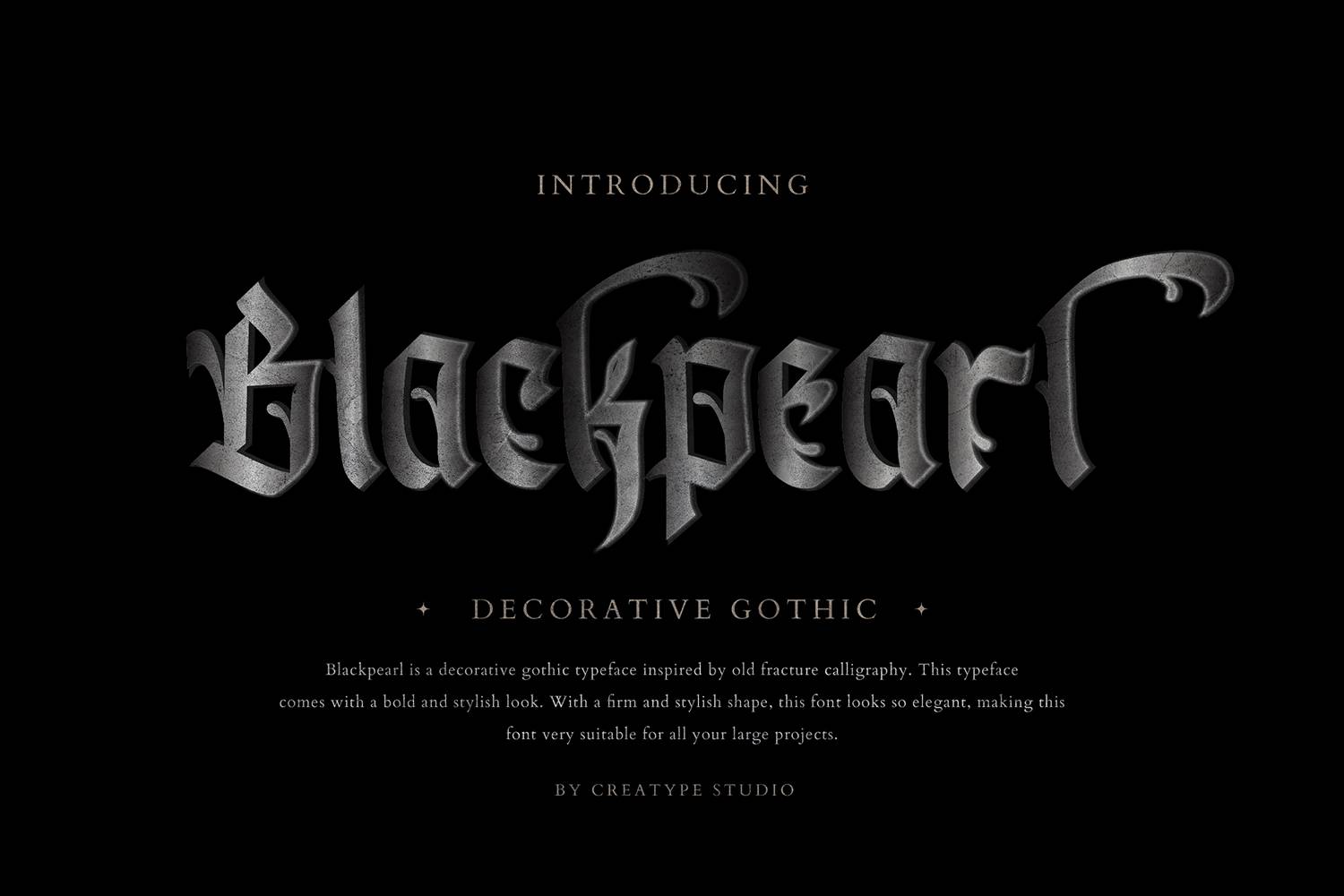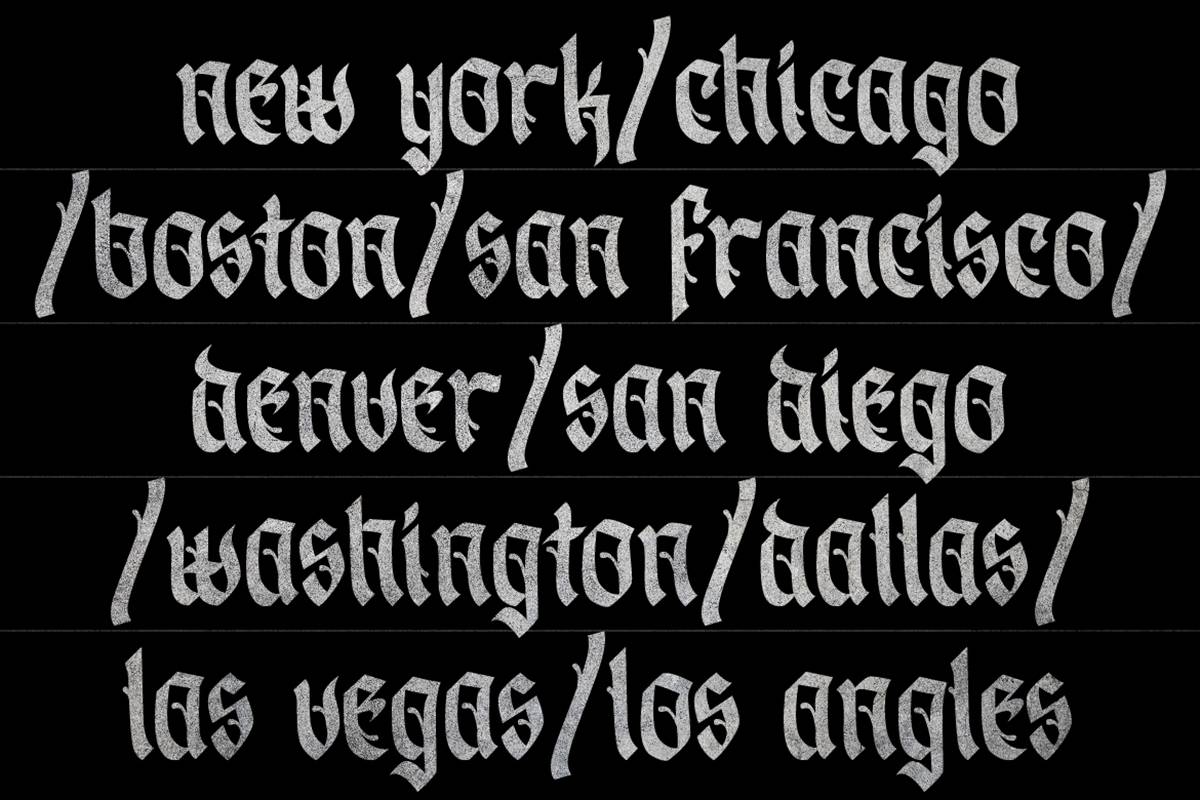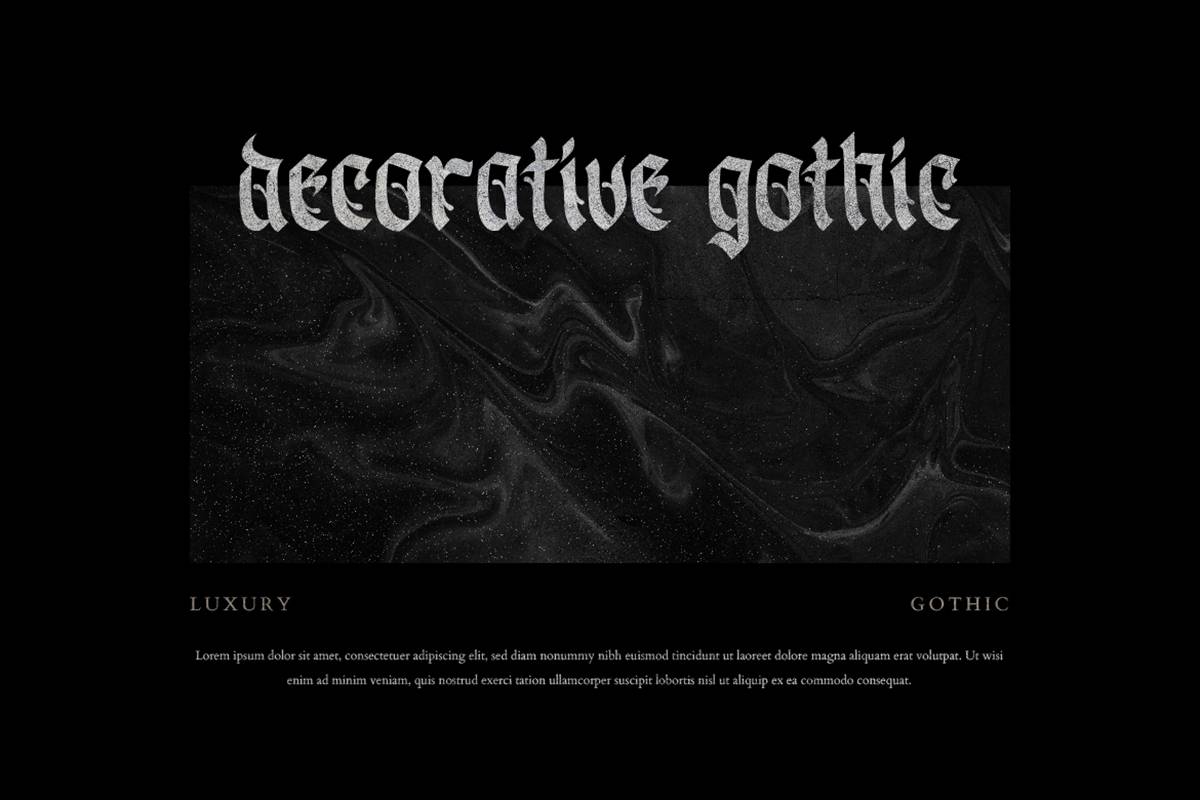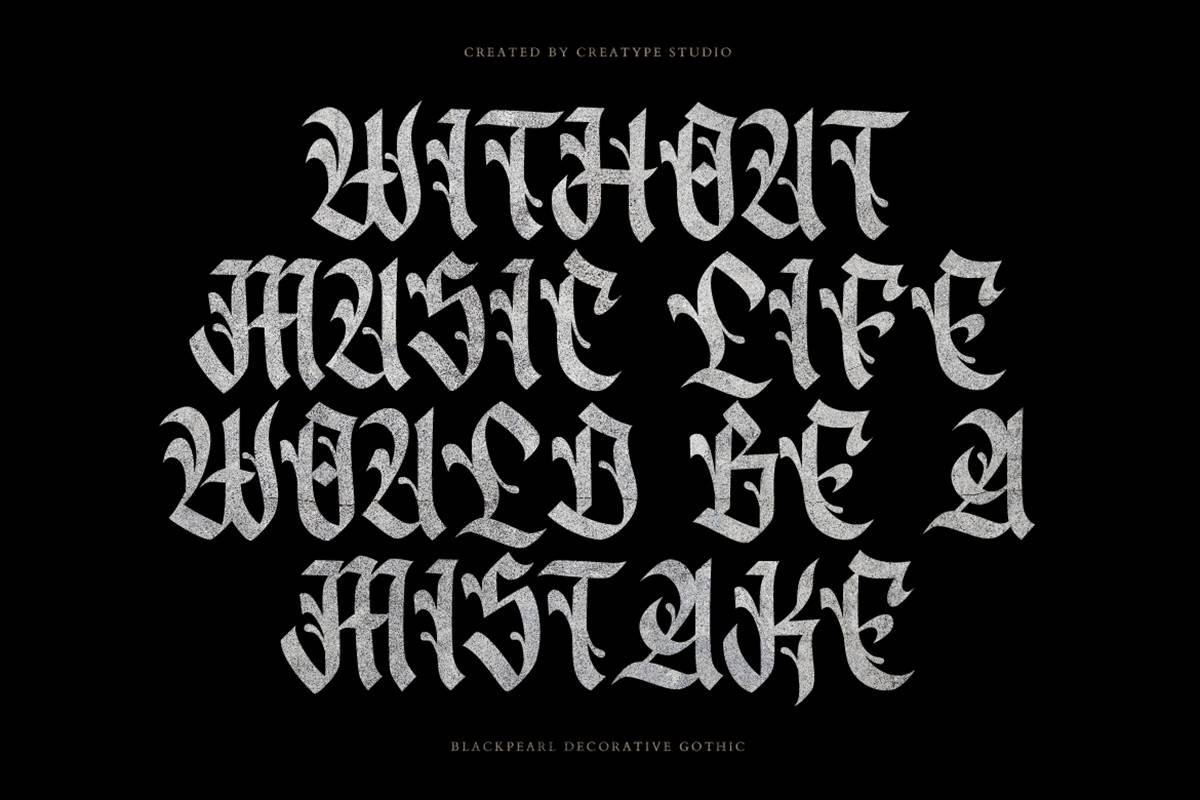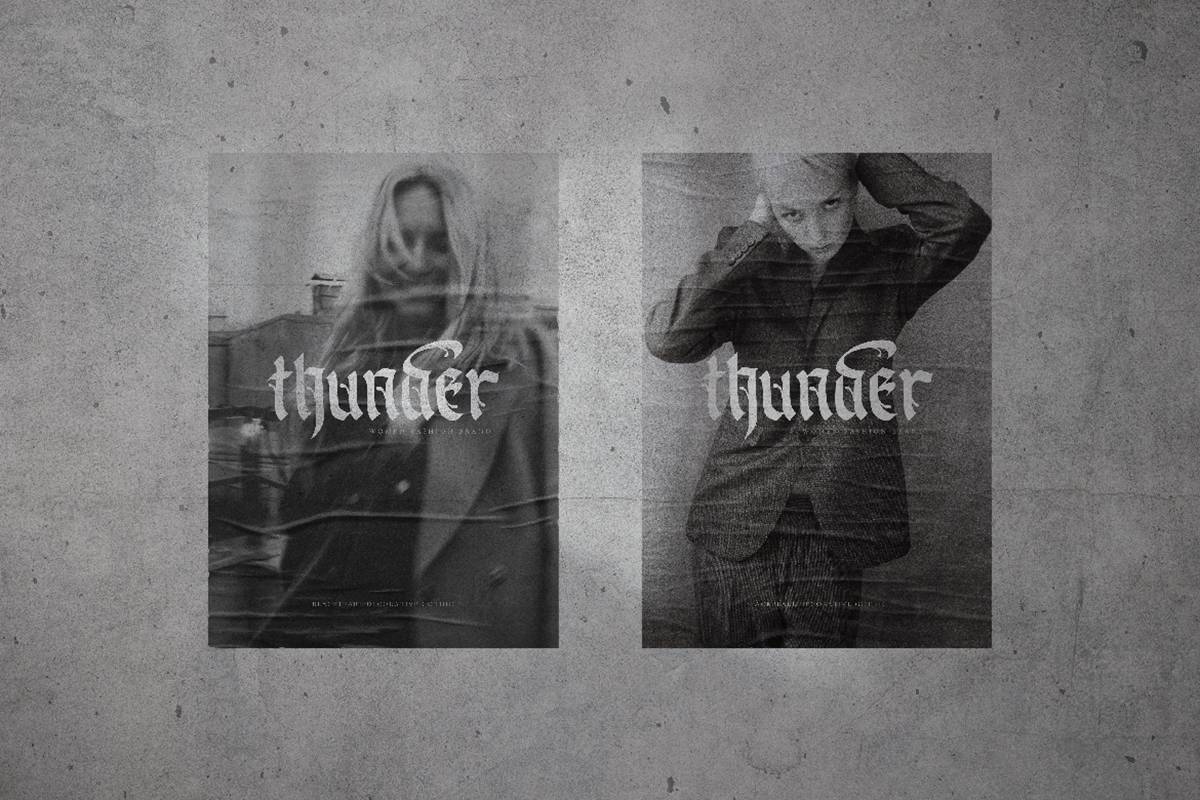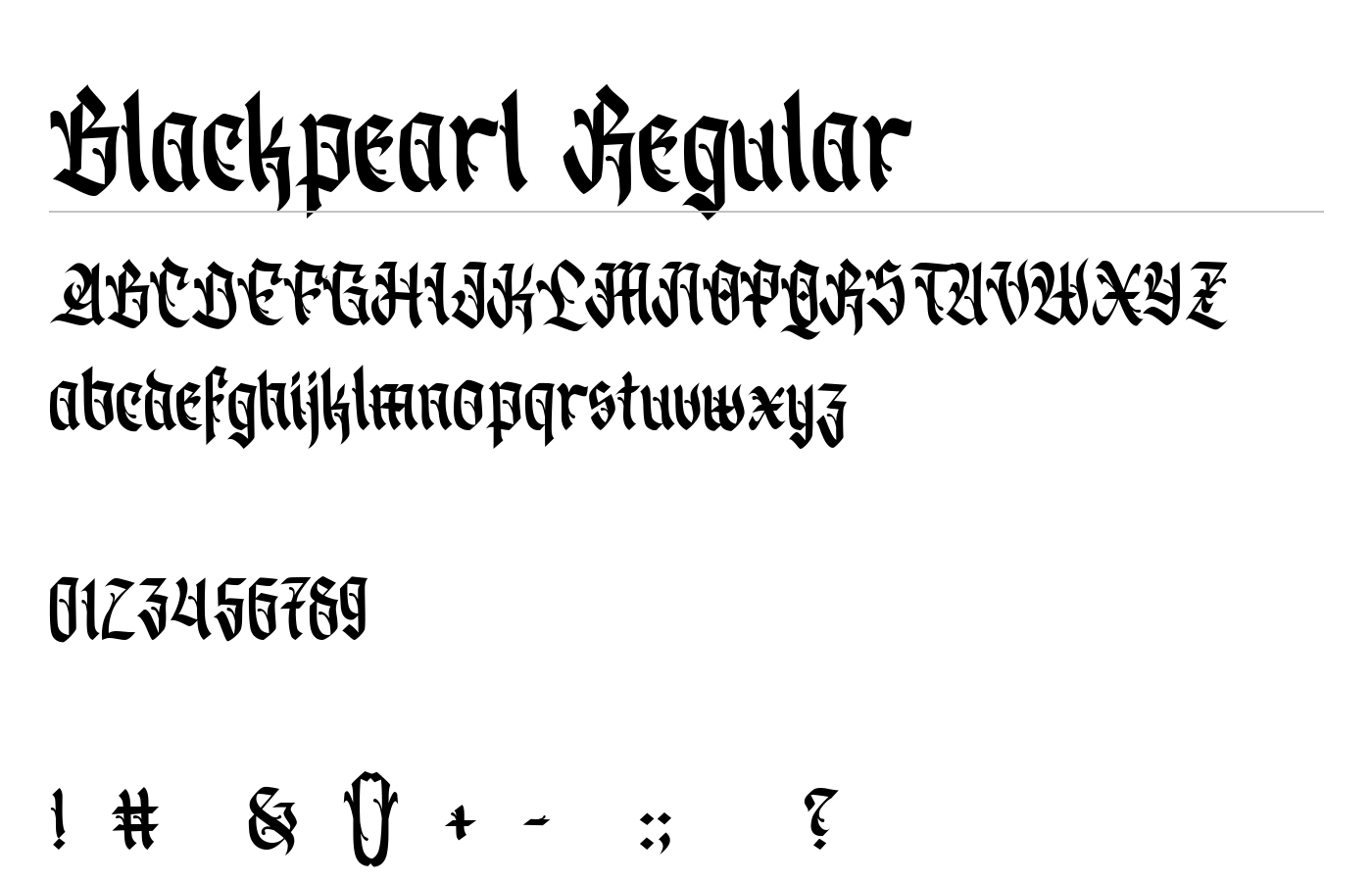
Blackpearl is a striking blackletter serif font that channels a historical and gothic vibe with its sharp, angular strokes and dramatic contrast between thick and thin lines. Its condensed structure and intricate letterforms give it a bold and ornamental personality, making it perfect for creating vintage-inspired designs, edgy headlines, or branding that seeks a classic yet intense character. This font works best in display settings where its rich detail can stand out, such as logos, posters, or editorial titles.
Blackpearl Font
About Blackpearl Font